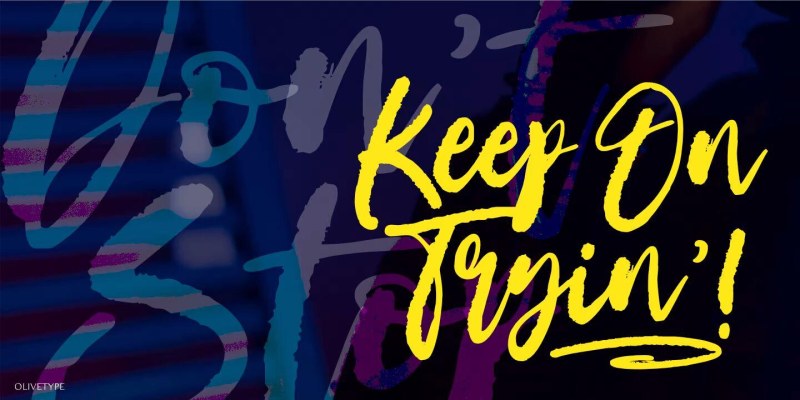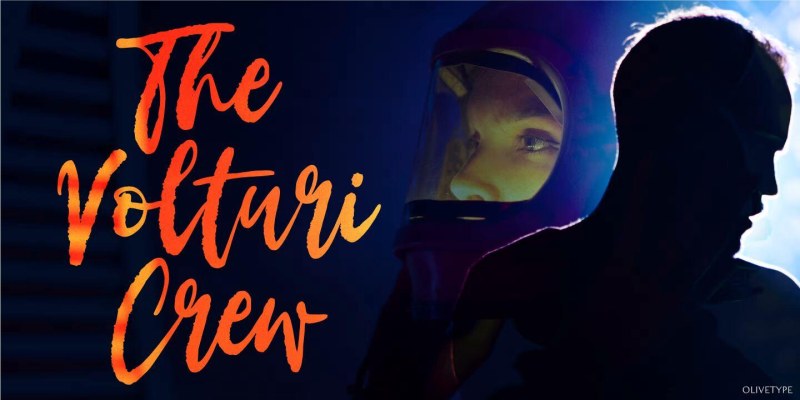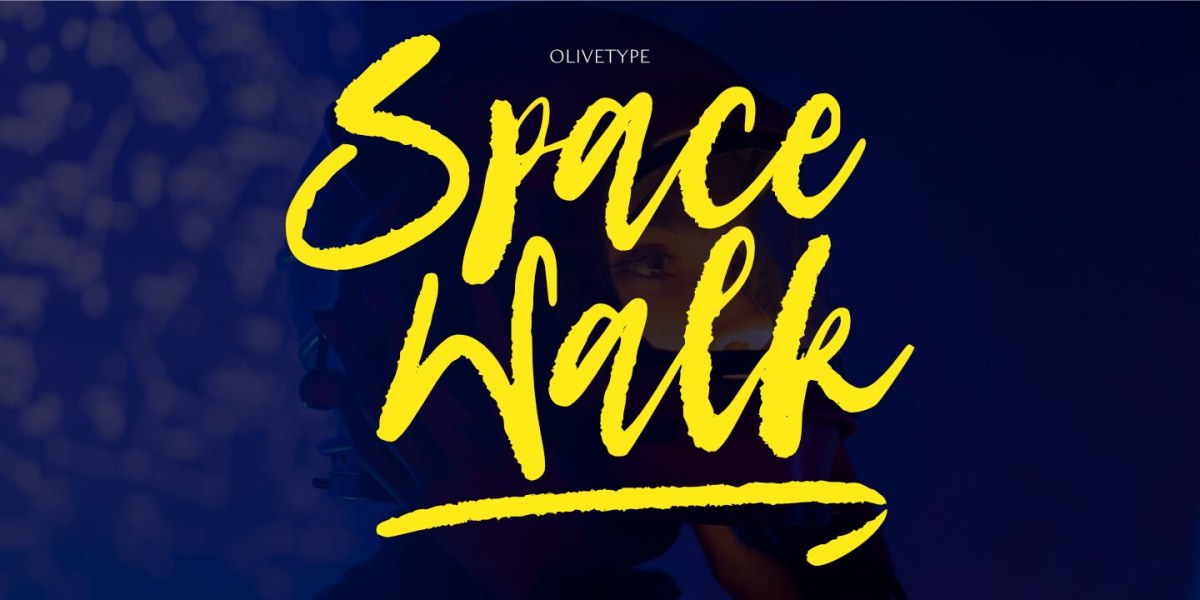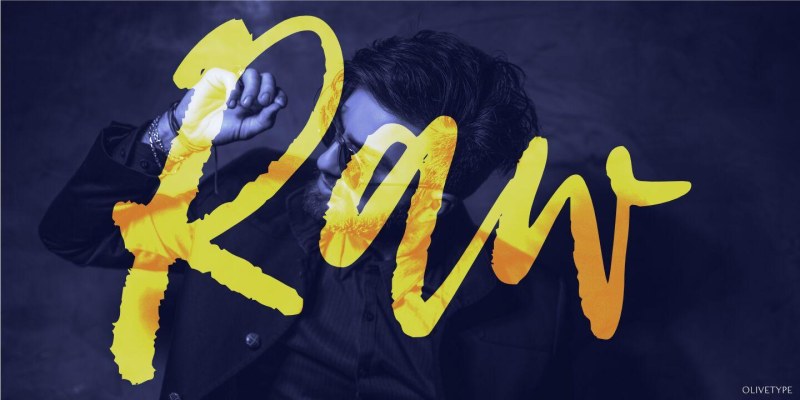
Space Walk Font
Space Walk is a dry brush handwritten script font. It is an excellent choice for creating eye-catching logos, branding, and quotes. The font supports 66 languages, which include Afrikaans, Albanian, Catalan, Danish, Dutch, English, Estonian, Finnish, French, German, Italian, Norwegian, Portuguese, Spanish, Swedish, Zulu, and more.
Where Space Walk Font works best
Personal branding & signatures
Space Walk Font adds an authentic, human signature to portfolios, coaching brands and creator logos.
Cards, journals & planners
Ideal for greeting cards, printable planners and scrapbook layouts.
Food & café menus
Handwritten styles like Space Walk Font make menus and chalkboard-style signage feel friendly.
What is Space Walk Font good for?
Space Walk Font is a Handwriting Fonts typeface tagged Branding, Handwriting Fonts, Handwritten, Script. It works well for headlines, logos, posters, social media graphics and branding projects that need a distinctive handwriting fonts look.